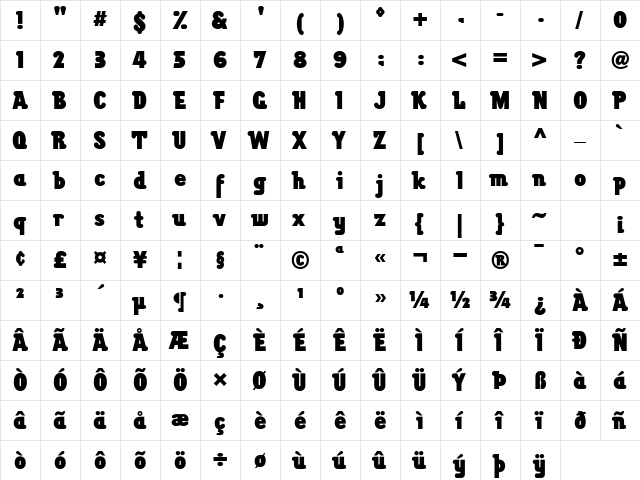
ChwastBuffalo-BlackCond Regular
Design Context for ChwastBuffalo-BlackCond Typeface
ChwastBuffalo-BlackCond takes a measured approach to typography — its balanced proportions and neutral character make it a reliable workhorse for both digital and print work. The condensed width makes it efficient for tight spaces without sacrificing legibility.